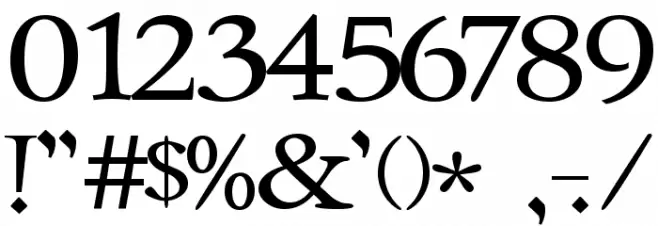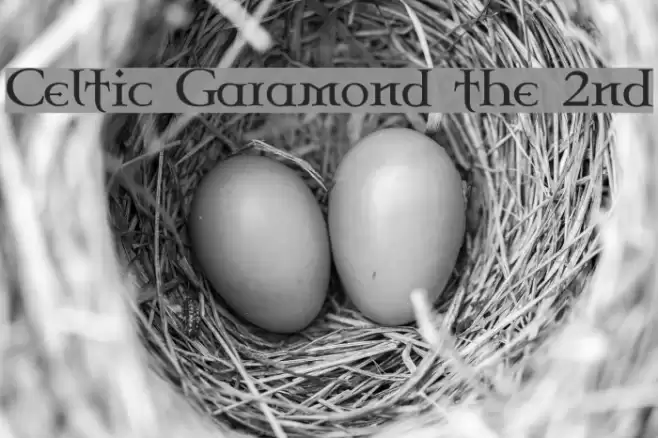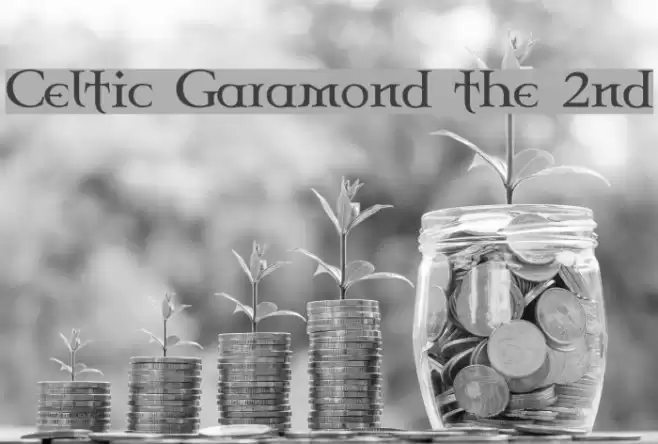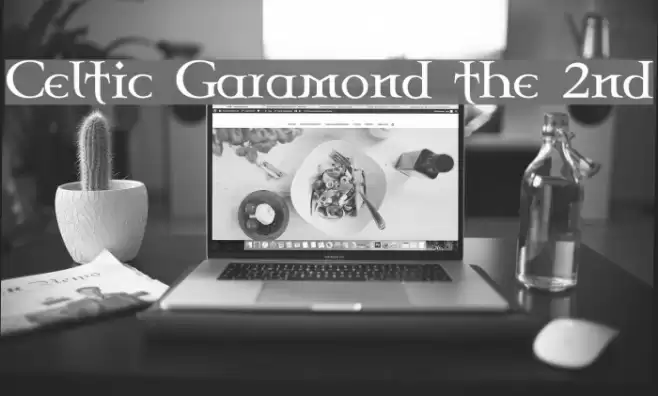
Celtic Garamond the 2nd Font
Celtic Garamond the 2nd Description
This font features a unique blend of traditional and decorative elements, reminiscent of historical scripts with a modern twist. The uppercase letters are characterized by their elegant, elongated forms with subtle serifs, while the lowercase letters maintain a consistent style with a slightly more rounded appearance. The numerals are bold and clear, ensuring readability. Special characters are crafted with intricate details, adding to the font's overall decorative appeal. This typeface exudes a sense of sophistication and timelessness, making it suitable for projects that require a touch of classic elegance.
| Overall Style | Classic |
| Use Case | Logos, Headlines, Decorative text |
| Proposed Projects | Ideal for wedding invitations, historical themed projects, book covers, and branding that requires a classic touch. |